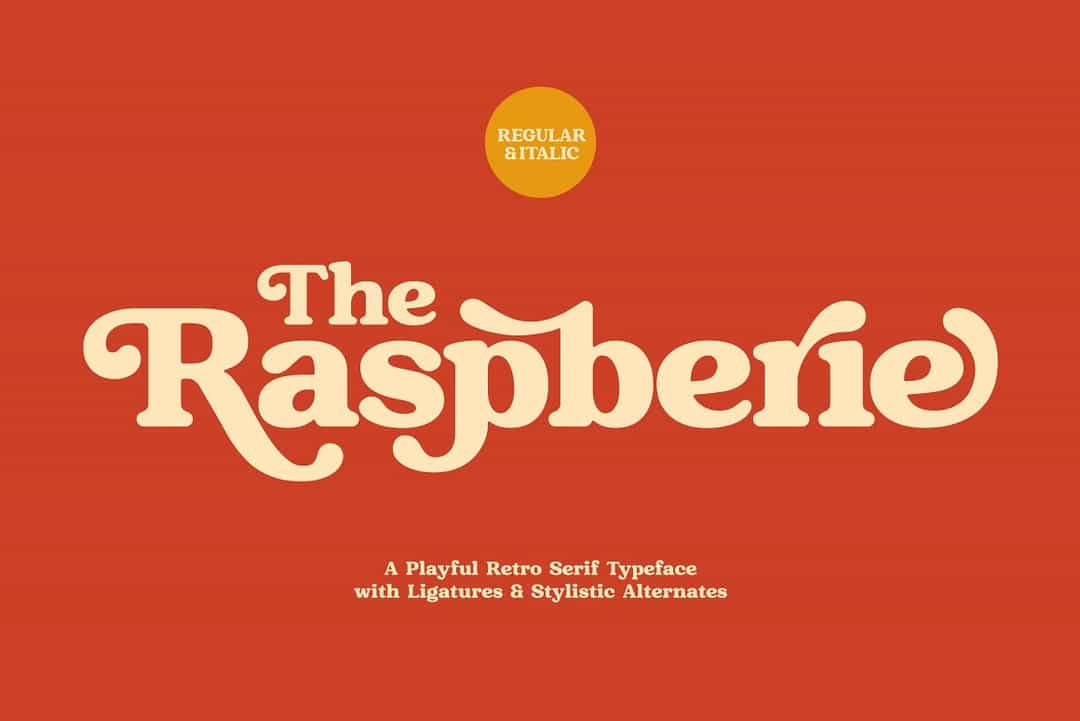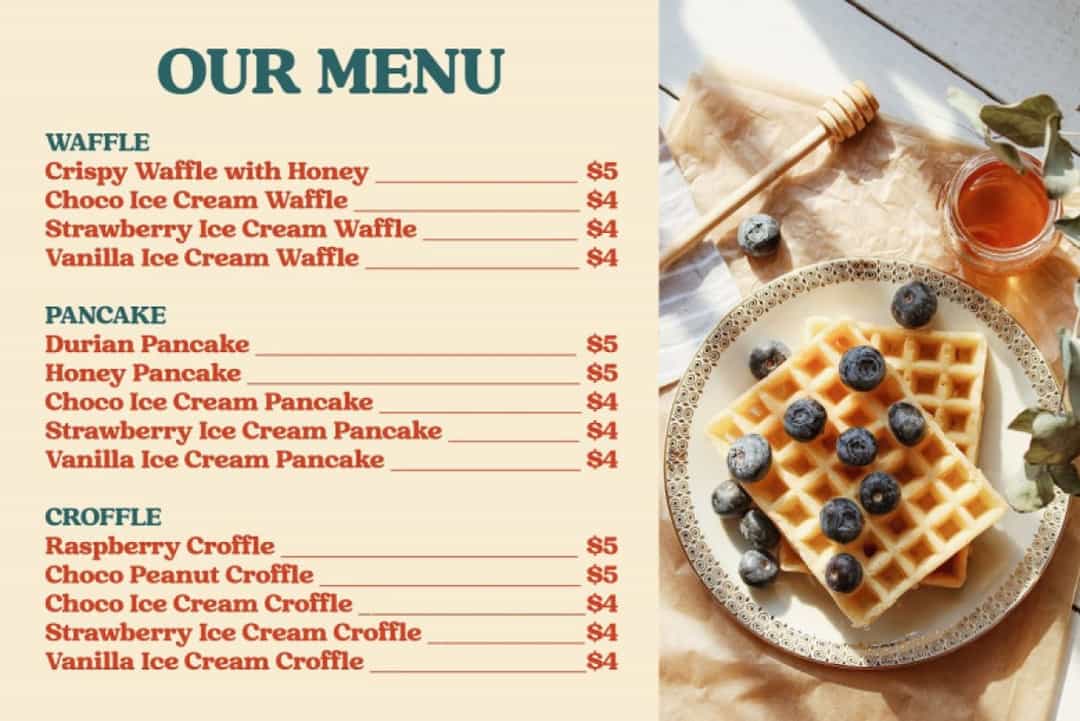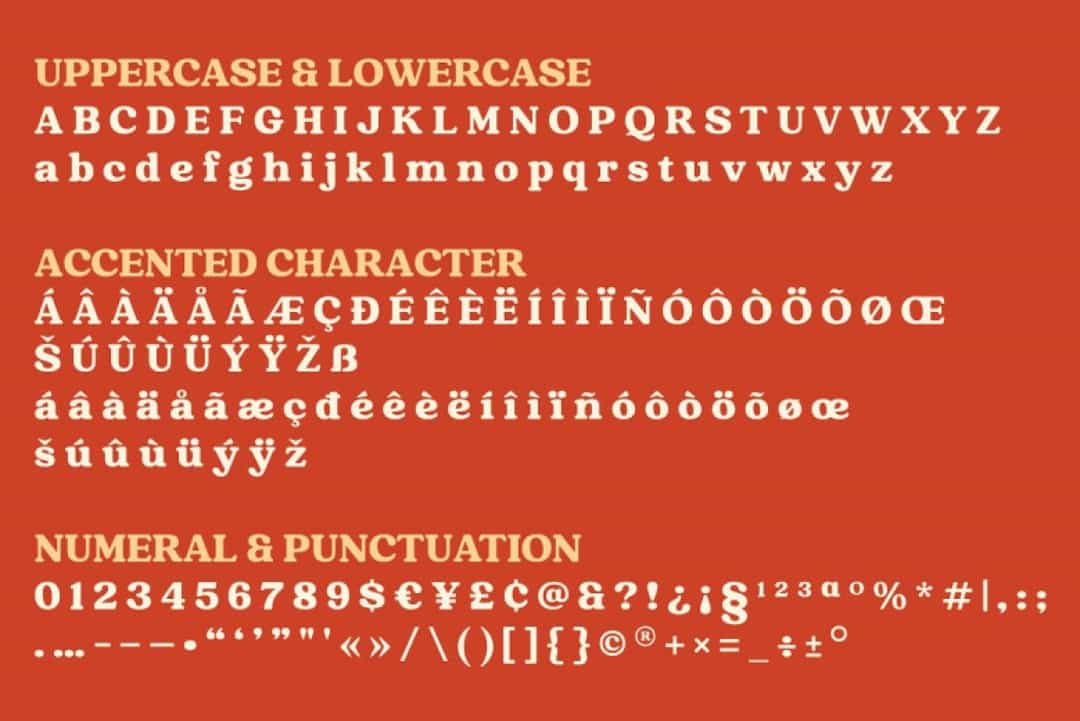
Raspberie is an exquisite serif typeface created with care and passion to achieve an aged yet classic design aesthetic. You can use this font for various projects including posters, graphics design packaging design logotype branding or any other application you might find suitable.